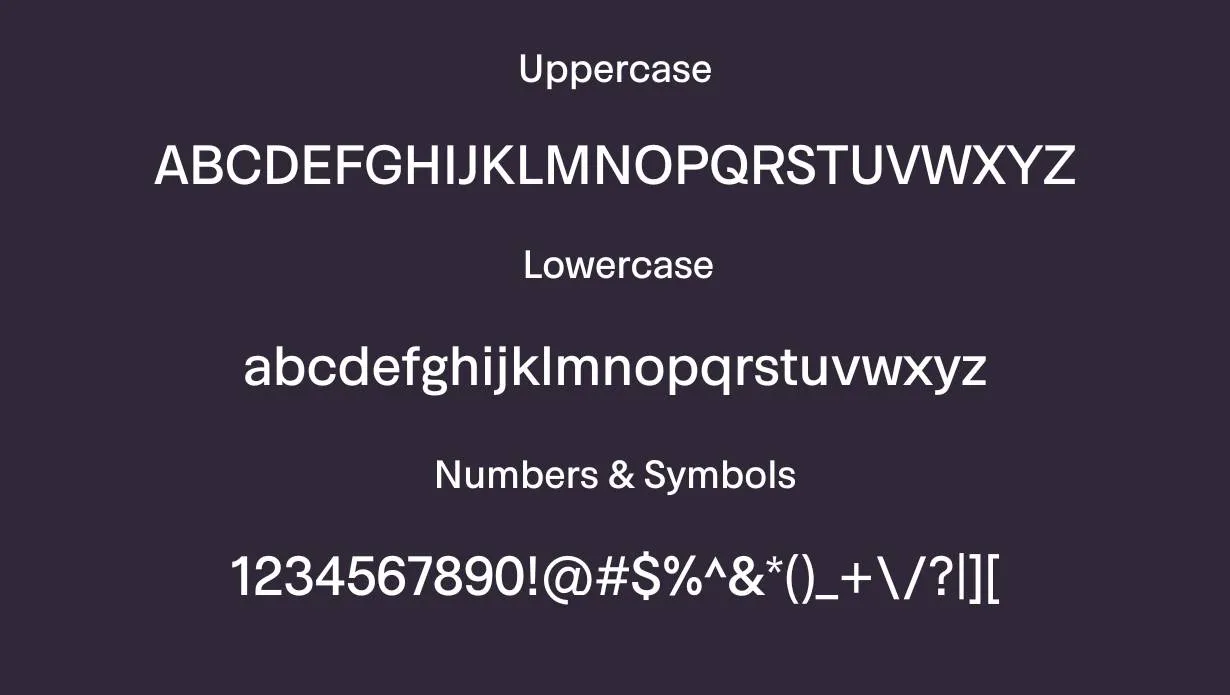
Okomito Font is a modern and versatile sans-serif typeface suitable for a wide range of design applications, including branding, advertising, web design, and packaging.
Its clean lines and multiple styles make it a practical choice for conveying a contemporary and organized aesthetic.
| Name | Okomito Font |
| Designer | redo Marco Pradil |